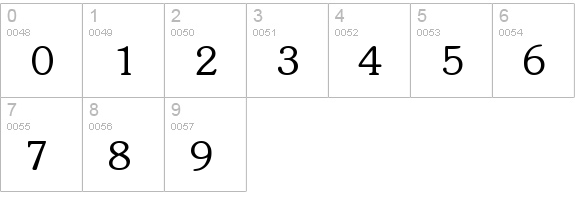
SunsetSerial-Light-Regular is a refined, elegant variant in the SunsetSerial typeface family \xE2\x80\x94 well suited to elegant body text, refined sub-headings, and luxury branding.
SunsetSerial-Light-Regular is a charming and elegant font that exudes a sense of warmth and sophistication. Its delicate and flowing strokes make it perfect for various design projects, from invitations to branding materials. The soft curves and clean lines of SunsetSerial-Light-Regular give it a timeless appeal that can elevate any design. The best part? SunsetSerial-Light-Regular is available for free download at FontsMarket.com. This means you can easily access this beautiful font and use it in your projects without any cost. Whether you are a designer looking for a versatile typeface or someone in need of a stylish font for personal use, SunsetSerial-Light-Regular is a fantastic choice that won't break the bank. Don't miss out on this opportunity to enhance your designs with the beauty of SunsetSerial-Light-Regular. Download it for free today and add a touch of elegance to your creations.